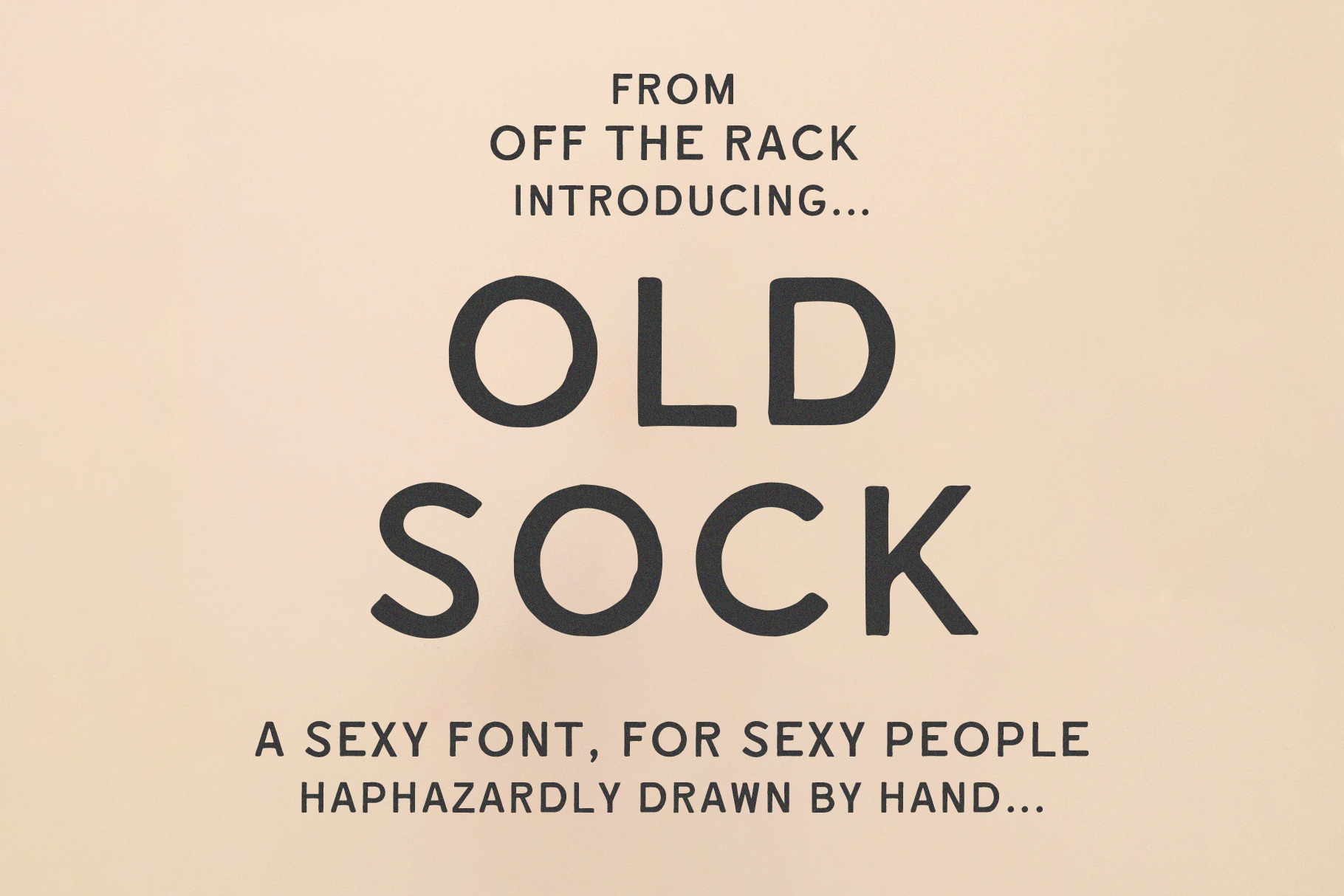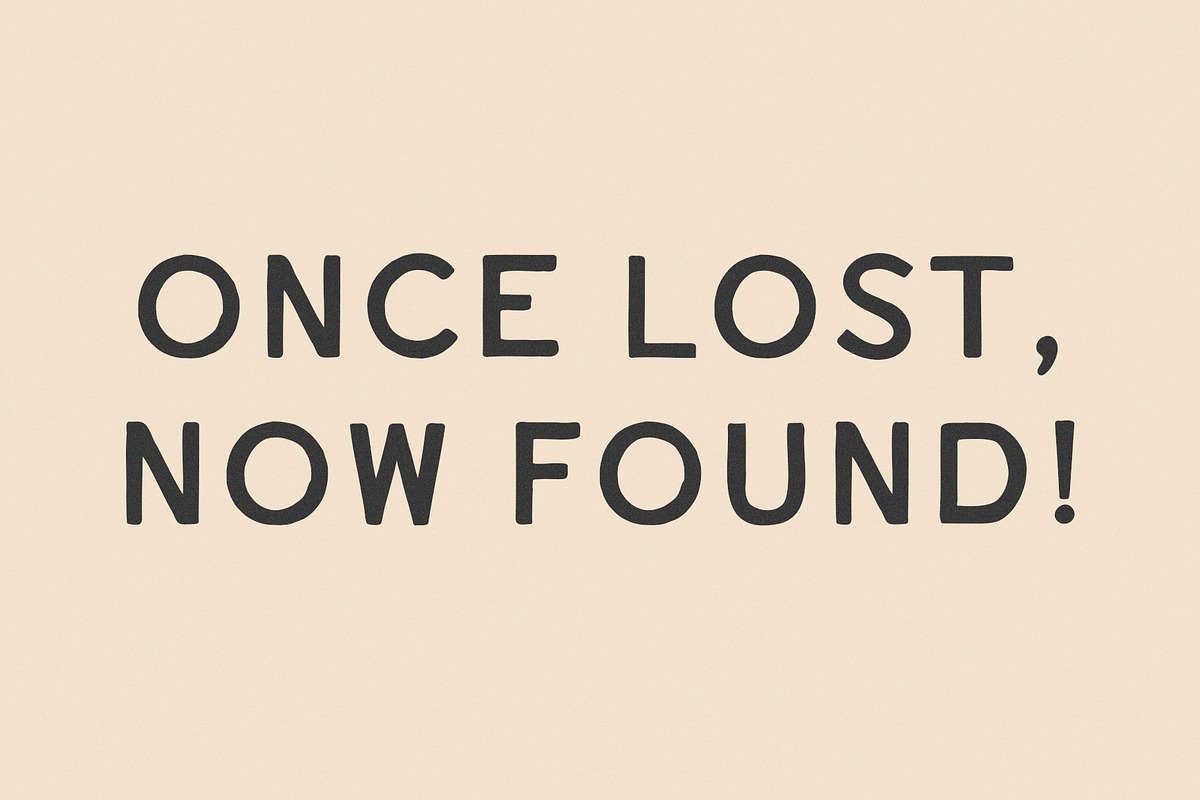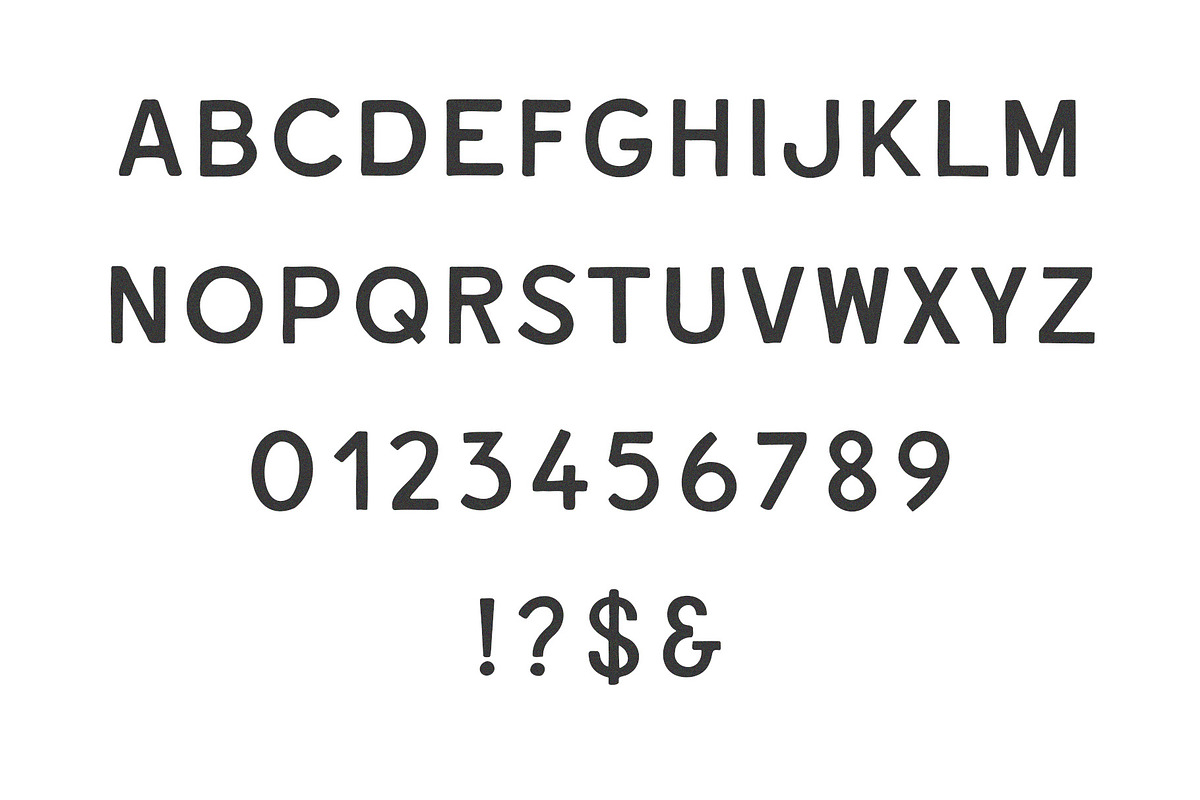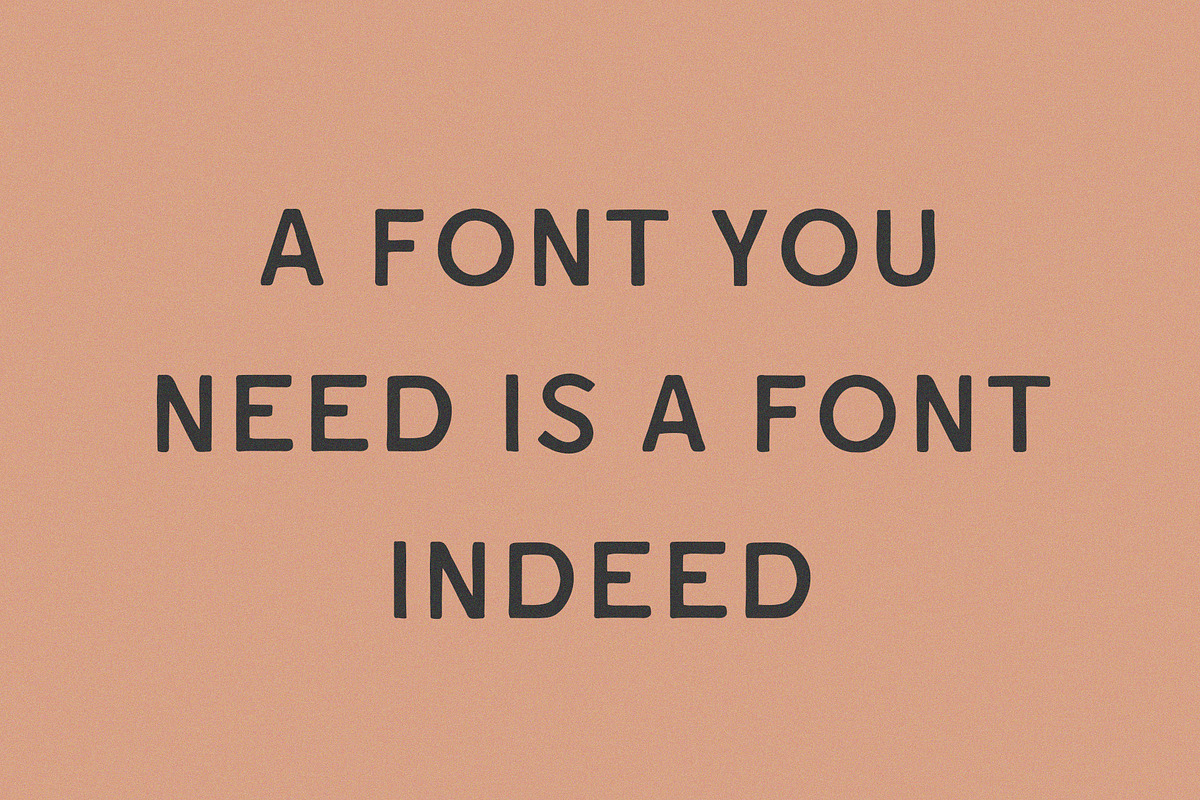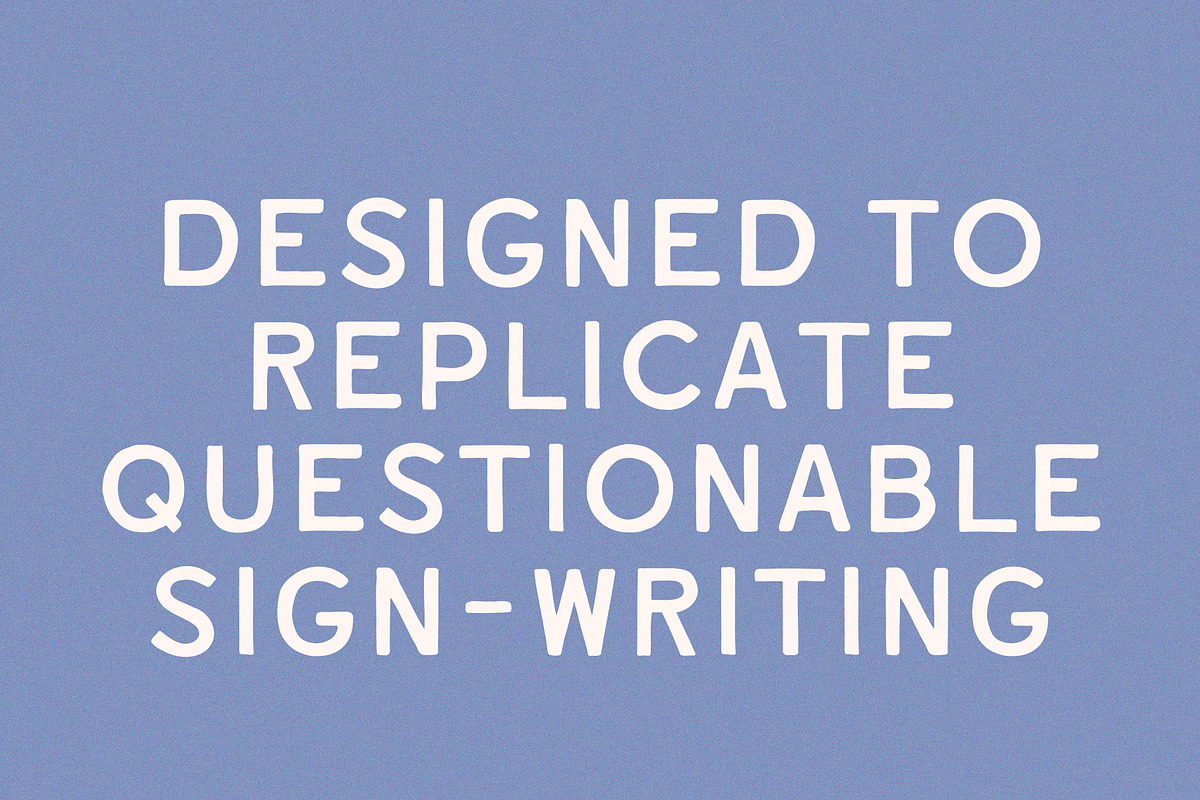
Old Sock | Hand Drawn Vintage Font
Old Sock finds its roots in dodgy black and white photos of shop signage.
Drawn by hand to capture that vintage aesthetic, Old Sock will quickly become your most used font. Or at least one of your top three.
I might even go so far as to say I like it more than Comic Sans...
Contains uppercase A-Z, numbers 0-9, and very basic punctuation.